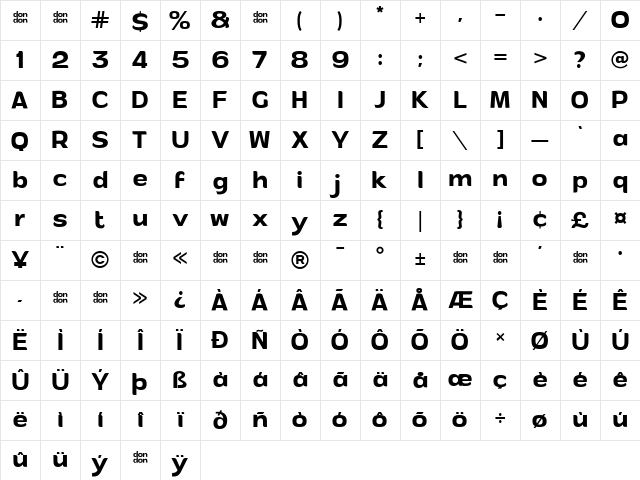
Complete Andor PersonalUse glyph index. Displaying only characters natively supported by Andor PersonalUse font.
Andor is a composed and adaptable typeface that performs quietly and consistently across a wide range of design contexts.
Pro Tip: Use Andor in both headline and body roles to test its range before committing to a single application.